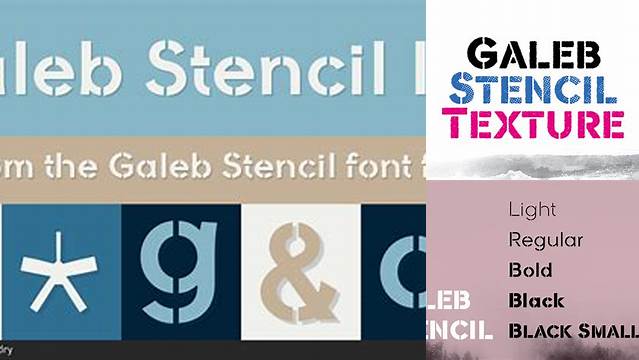
Hey guys! Are you looking for a cool, eye-catching font that screams personality? Well, look no further because we're diving headfirst into the awesome world of Galeb Stencil Bold Font! And guess what? You can score a free download! This article is your ultimate guide to everything you need to know about this fantastic font – where to grab it, how to use it, and why it's a total game-changer for your design projects. So, buckle up and get ready to unleash your inner designer! We'll cover everything from the technical aspects to the creative possibilities, ensuring you're fully equipped to make the most of this fantastic typeface.
H2: What Exactly is Galeb Stencil Bold Font?
Alright, let's start with the basics. Galeb Stencil Bold Font is a striking typeface that belongs to the stencil font family. Stencil fonts, as you probably know, are characterized by the bridges or breaks in the letterforms, creating a distinctive, almost industrial look. This particular version, the 'Bold' variant, packs an extra punch with its thicker strokes, making it even more attention-grabbing. The Galeb Stencil Bold Font design isn't just about aesthetics; it's about making a statement. It's about conveying strength, modernity, and a touch of urban flair. This font is perfect for projects where you want to grab the viewer's attention and leave a lasting impression. Think about it – it’s ideal for headlines, posters, logos, and any design element where you want to make a bold statement. The font’s clear and legible design ensures readability even at larger sizes, meaning your message will hit home. The unique stenciled effect adds an edgy, contemporary twist, instantly making your work stand out from the crowd. Furthermore, its bold weight ensures high visibility, which is incredibly useful for conveying important information or creating impactful visual communications. In addition to the aesthetic appeal, the font is also versatile. It's not limited to just one type of project. It can be adapted to various design contexts, from social media graphics to website banners. This flexibility is what makes the Galeb Stencil Bold Font a must-have for designers and creatives who love to experiment with different styles. You can use it in a range of projects, from creating a modern brand identity to designing eye-catching promotional materials. Using this typeface adds a professional yet unique touch to your projects, so you can really impress your audience. The clear, deliberate breaks in the letterforms also hint at a sense of precision and technical skill, which can be seen in the design of many contemporary brands and marketing campaigns. When you use Galeb Stencil Bold Font, you're essentially aligning your work with a trend that showcases boldness and modernity.
H3: Galeb Stencil Bold Font: Key Features and Characteristics
Let's get into the nitty-gritty, shall we? When you get your hands on Galeb Stencil Bold Font, you'll immediately notice several key features that set it apart. First and foremost, the boldness – the thick strokes are designed to command attention. Then there is the stencil style, of course, the defining characteristic. The strategic cutouts in the letters aren’t just for show; they give the font its unique character and allow the font to be instantly recognizable. Another thing to keep in mind is the font's excellent readability, even at larger sizes. This is critical for headlines and other design elements where clarity is key. Despite its bold appearance, the font is still incredibly readable, ensuring your message gets across effectively. This ensures your message is understandable at a glance. This is a practical advantage that can't be overlooked! The design also often includes a comprehensive character set. This means you get not only the basic alphabet but also numbers, punctuation, and often a selection of special characters and glyphs. This wider range makes Galeb Stencil Bold Font even more versatile. The font’s clean and modern aesthetic is another major selling point. The geometric shapes and precise cuts give it a contemporary feel. Finally, consider the font's overall versatility, which lends itself to a wide variety of uses. This includes everything from posters and logos to website headers and social media graphics. It's a powerful tool for designers. These features, combined, make the Galeb Stencil Bold Font a standout choice for any project requiring a modern, bold, and easily recognizable font. Using it effectively is about understanding its strengths and applying them creatively to your projects.